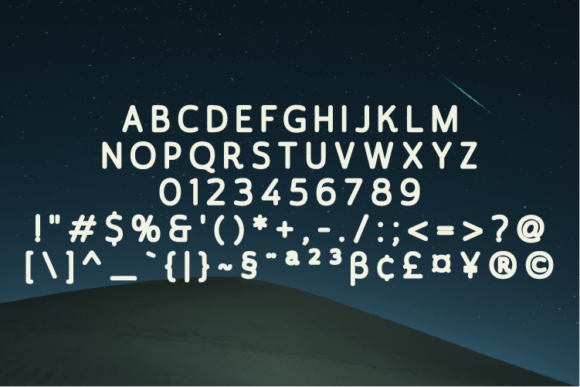
Introducing Argodame Extra Black Font: The Ultimate Choice for Modern Designers
In the world of typography, a good font can make all the difference in the success of a design project. With the numerous options available, it can be overwhelming to choose the right one that suits your creative vision. However, if you’re looking for a font that exudes friendliness, expressiveness, and modernity, look no further than Argodame Extra Black Font. In this article, we’ll dive into the features and benefits of this exceptional font, and explore its vast range of applications.
What is Argodame Extra Black Font?
Argodame is a rounded sans serif font that boasts soft terminals, giving it a unique and approachable appearance. Its modern and contemporary style, combined with classic proportions, make it an excellent choice for a wide range of design projects. Whether you’re working on headlines, logotypes, branding, books, magazines, motion graphics, or more, Argodame Extra Black Font is the perfect companion.
Key Features of Argodame Extra Black Font
- Rounded Sans Serif: Argodame’s rounded edges and soft terminals create a friendly and inviting atmosphere, perfect for designs that require a approachable tone.
- Modern and Contemporary Style: The font’s sleek and modern design ensures that your projects look fresh and up-to-date.
- Classic Proportions: Argodame’s classic proportions provide a sense of timelessness, making it suitable for a wide range of applications.
- High Versatility: This font is ideal for various design projects, from headlines and logotypes to branding, books, magazines, and motion graphics.
Benefits of Using Argodame Extra Black Font
So, why choose Argodame Extra Black Font for your next design project? Here are just a few benefits:
- Enhance Readability: Argodame’s clear and legible design ensures that your message is conveyed effectively, making it perfect for body text and headlines.
- Establish Brand Identity: The font’s unique and distinctive style helps create a strong brand identity that sets you apart from the competition.
- Streamline Design Workflow: With Argodame Extra Black Font, you can achieve professional-looking results quickly and efficiently, saving you time and effort.
Design Applications of Argodame Extra Black Font
Argodame Extra Black Font is an incredibly versatile font that can be used in a wide range of design applications, including:
- Headlines and Titles: Use Argodame to create eye-catching headlines and titles that grab attention.
- Logotypes and Branding: The font’s modern and friendly style makes it perfect for logotypes, business cards, and brand guidelines.
- Books and Magazines: Argodame is ideal for book covers, article titles, and body text, ensuring a professional and polished finish.
- Motion Graphics: The font’s clean and legible design makes it suitable for motion graphics, animations, and video titles.
In conclusion, Argodame Extra Black Font is an exceptional choice for designers and crafters looking for a modern, friendly, and versatile font. Its rounded sans serif design, soft terminals, and classic proportions make it perfect for a wide range of design projects. Whether you’re working on a branding campaign, designing a book or magazine, or creating motion graphics, Argodame Extra Black Font is the ultimate companion. With its high readability, distinctive style, and versatility, this font is sure to elevate your design game and help you achieve professional-looking results.